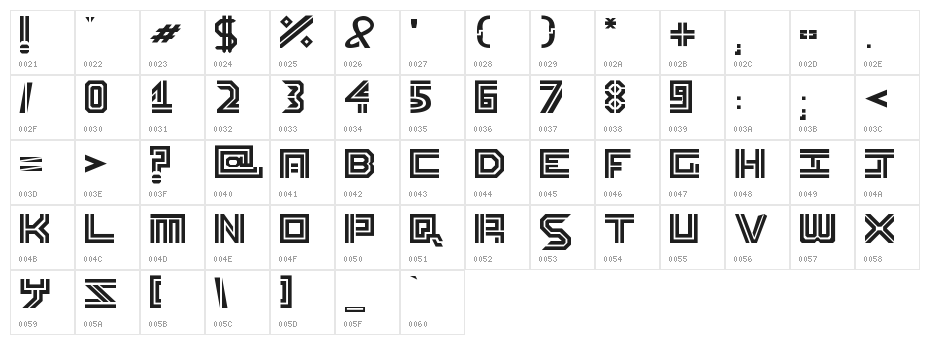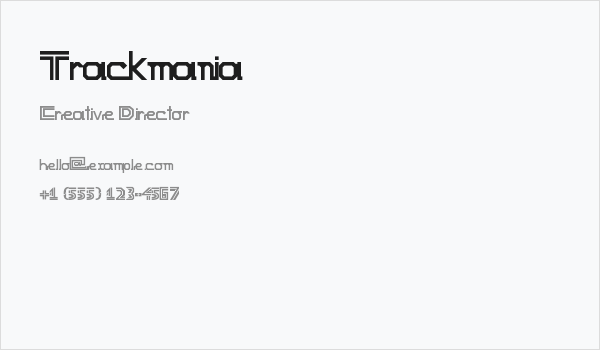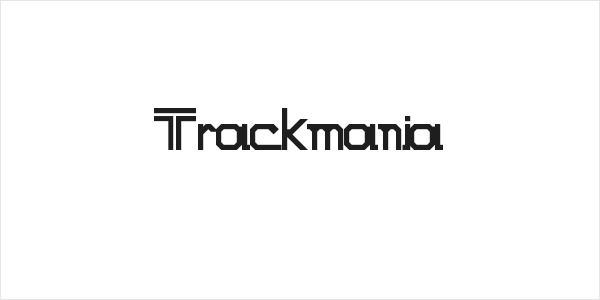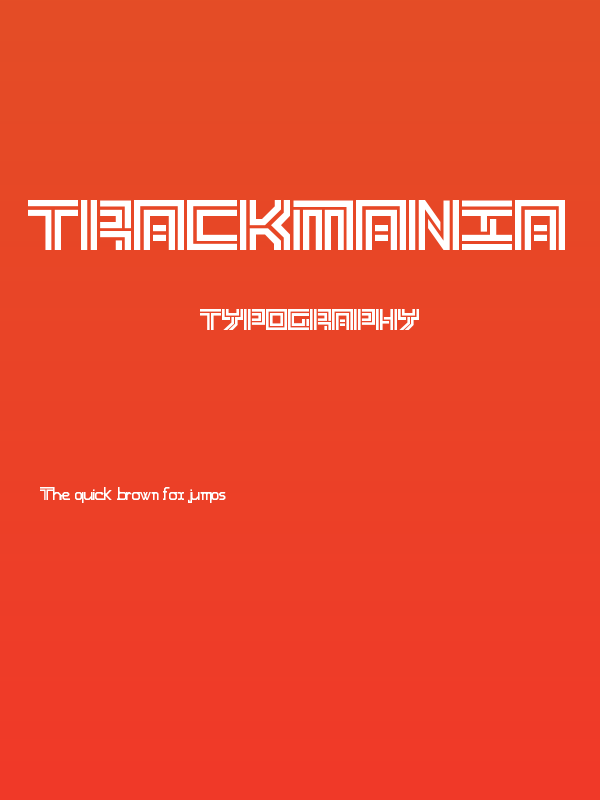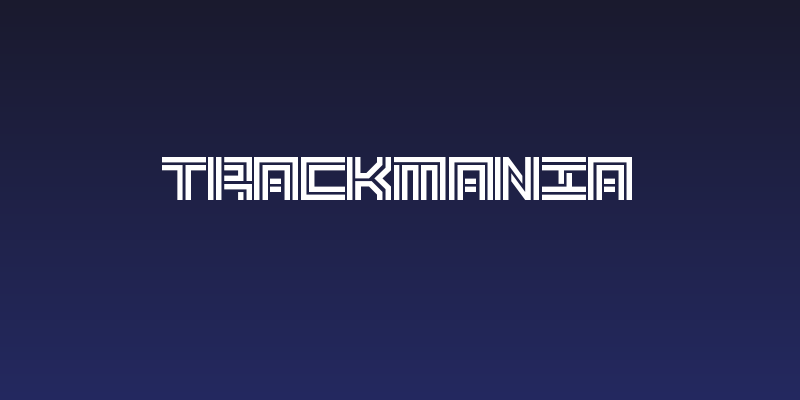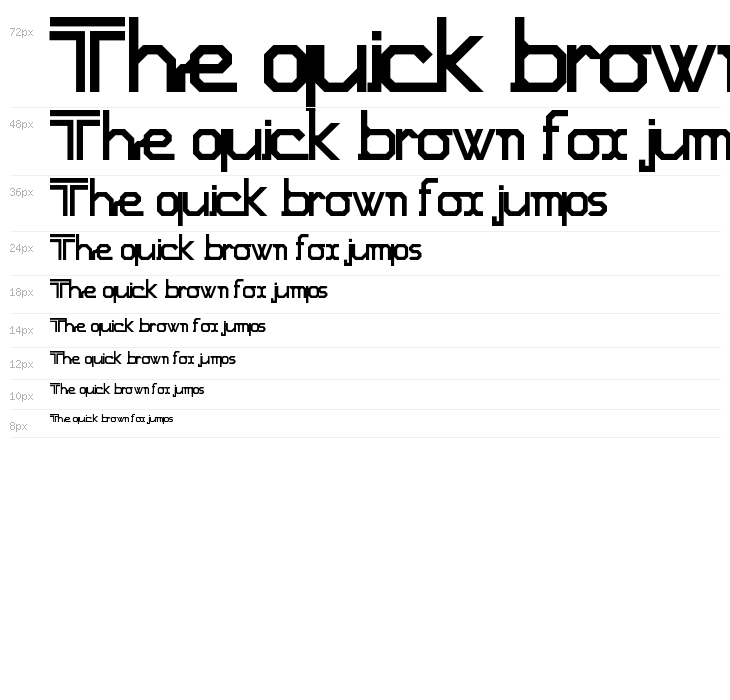
Trackmania Font
| Gesamtstil | Futuristic |
| Vorgeschlagene Projekte | Ideal for projects that require a modern, tech-inspired look, such as video game titles, tech branding, or sci-fi themed posters. |